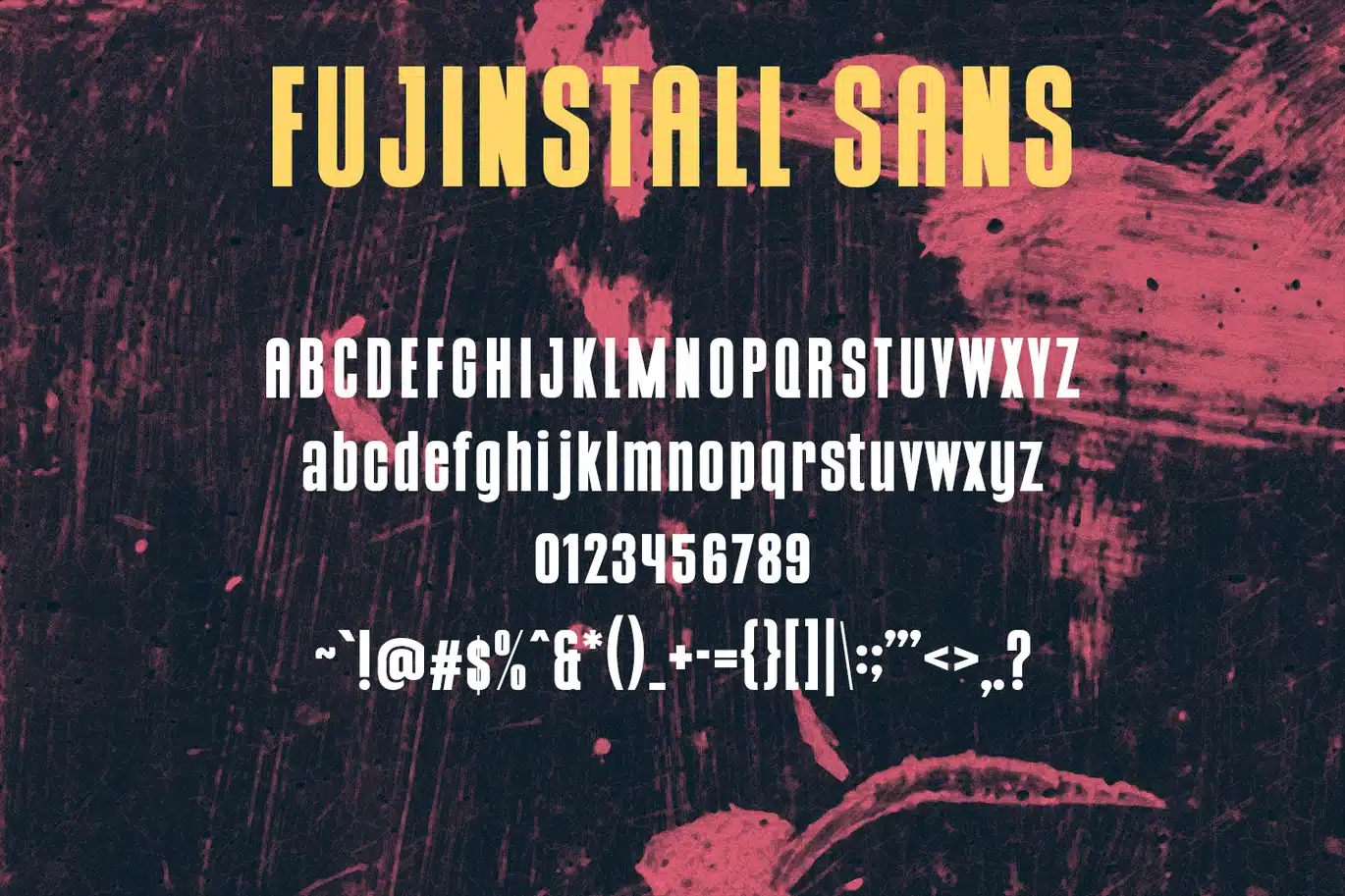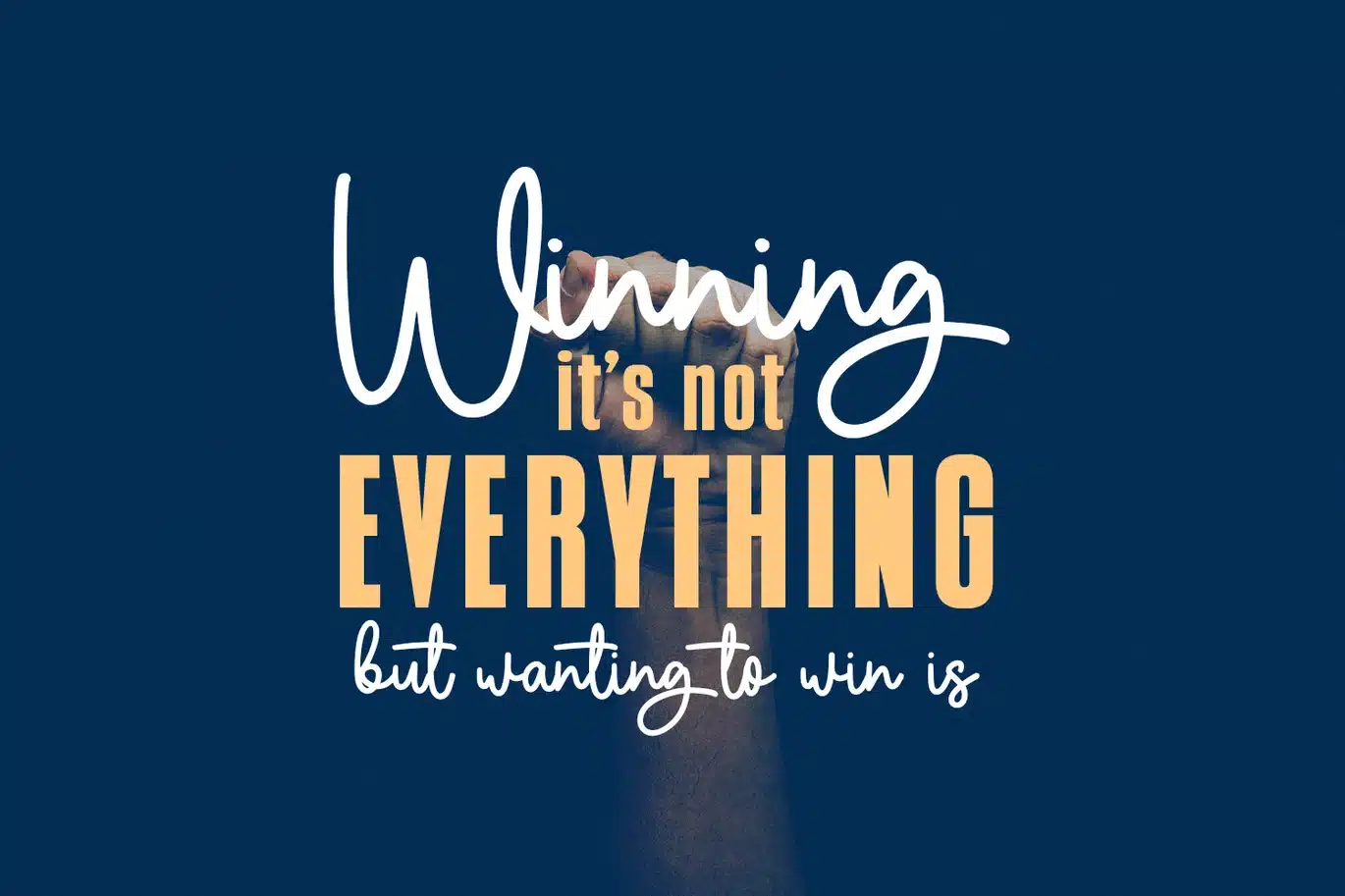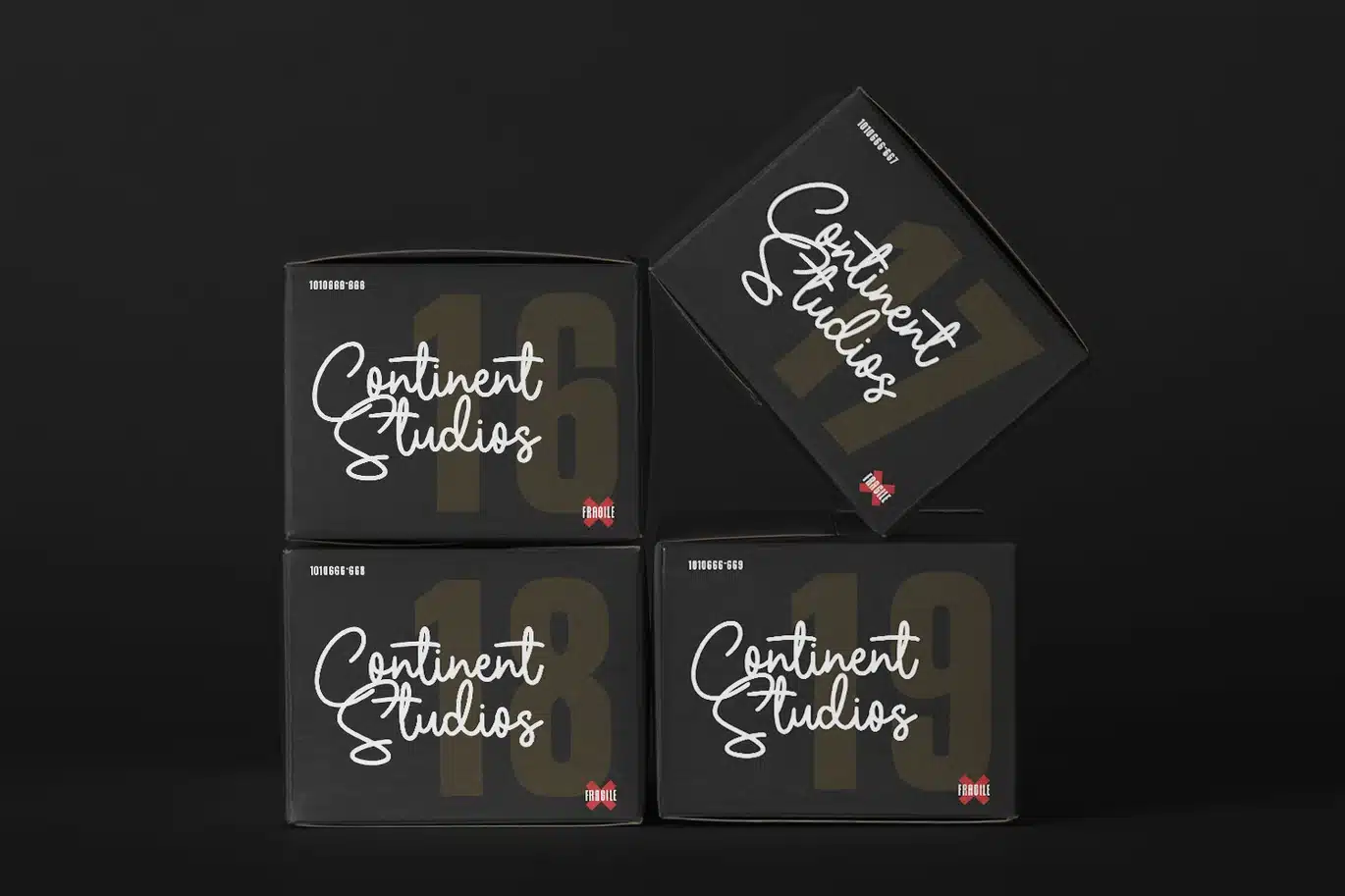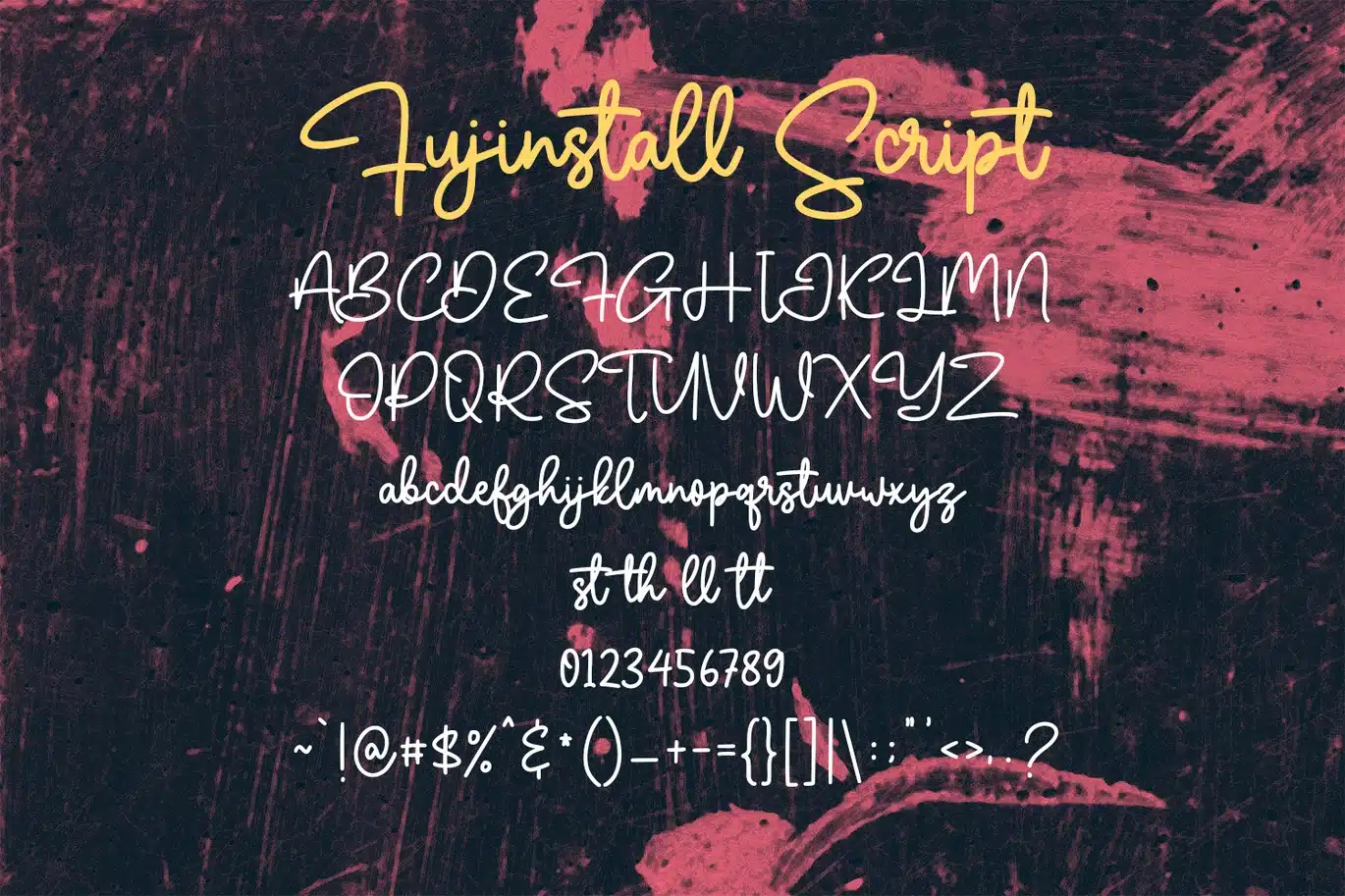
Fujinstall Font Duo
Fujinstall is a font duo script and sans. With mono-line script and bold weight sans stroke, Condensed sans and fun script character with a bit of script ligatures. To give you an extra creative work. Fujinstall font support multilingual more than 100+ language. This font is good for logo design, Social media, Movie Titles, Books Titles, a short text even a long text letter and good for your secondary text font with sans or serif. Make a stunning work with Fujinstall font.